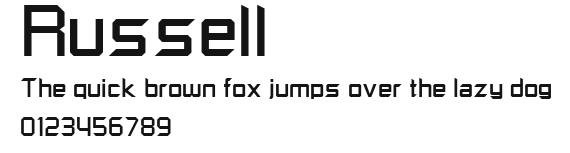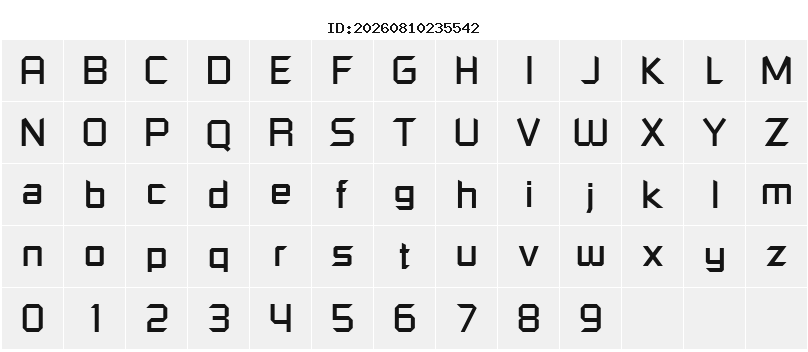
Russell Preview
• Font Name: Russell
• Full Font Name: Russell Regular
• PostScript Name: RussellSquare
About Russell.ttf
Russell.ttf is a modern, elegant sans-serif font designed for ultimate readability and visual harmony. Perfect for branding, headlines, web design, and print materials.